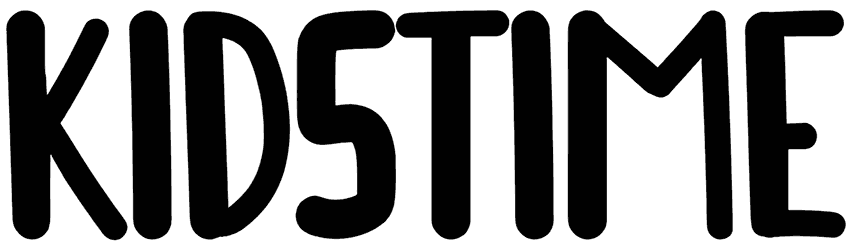
Kidstime Font
There is no need to be worried about finding a suitable font when you have access to our glorious archive and enjoy having lovely artwork similar to the Kidstime that comes with a geometrical style.
This comic font can boost the quality of your editorial projects and make your flyers, illustrations, graffiti, and social media posts look shining alongside their competitors. Needless to say, it can lead to a vibe of dynamic, futuristic, uniqueness, or vitality.